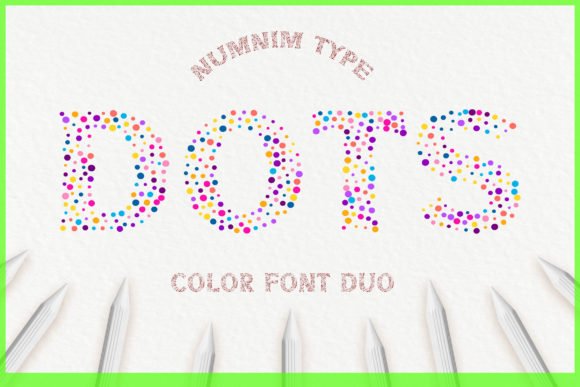
The Joy of Dots Font: Bringing Whimsy to Your Designs
Have you ever stared at a blank page, searching for the perfect font to give your project that extra oomph? We’ve all been there. The blank page stares back, taunting us to make a statement. But what if we told you there’s a font that’s guaranteed to break the silence and add a dash of whimsy to your work?
Meet Dots Font, a charming and playful typeface that’s making waves in the design community. This innovative font features characters crafted entirely from small circles, creating a unique visual identity that’s perfect for adding a touch of personality to your letterheads, titles, and stationery. For designers, Dots Font is a valuable tool for adding a creative twist to their work, and its versatility makes it a must-have in any design arsenal.
Dots Font Key Features
- Unique Characteristics: The font features a distinctive dot-based design, with varying dot sizes and arrangements to create a unique visual effect.
- Legibility: Despite its unique design, Dots Font is designed to be highly legible, making it suitable for a wide range of applications, from body text to headlines.
- Language Support: Dots Font includes support for a wide range of languages, including Latin, Cyrillic, Greek, and many others, making it a versatile choice for global applications.
Dots Font Review
I recently had the chance to work with the “Dots Font” and I must say it’s an interesting addition to any design project. ✨ One thing that works well is its unique, playful aesthetic. The rounded dots and varied line weights give it a friendly feel that’s perfect for kid’s books, educational materials, or any project that needs a lighthearted touch.
- ✨ Unique and playful aesthetic
- Perfect for kid’s books, educational materials, or any project that needs a lighthearted touch
- Well-suited for display headings or titles
However, I did encounter some limitations. ⚠️ One of the main issues is its limited flexibility. The font is best suited for short texts or headlines, but it may not be the best choice for long blocks of text. Additionally, the font’s size and spacing can sometimes be a bit inconsistent, which may require some tweaking in the design process.
- ⚠️ Limited flexibility
- Not ideal for long blocks of text
- Inconsistent size and spacing
Overall, I think the “Dots Font” is a great choice for designers looking for a fun, playful font to add some personality to their projects. With a little creativity and flexibility, it can be a great addition to any design.
For a more creative look, try layering multiple dots fonts with different colors and sizes.
For a unique look, try combining the Dots font with other creative typography elements.
For a visually appealing presentation, try using the Dots font to create a title or heading.
The Dots font is perfect for:
1. Creating eye-catching titles and headings.
2. Adding a playful touch to digital designs.
3. Making text-based graphics stand out.
4. Adding a creative twist to presentations and reports.
Alternatives to Dots Font for Designers
Comparison to Dots Font: Avenir is more geometric and precise, whereas Dots Font has a more playful and irregular feel. Avenir is better suited for corporate and editorial designs, while Dots Font is more suitable for creative and artistic projects.
Open Sans is a popular sans-serif font designed by Steve Matteson. It is highly legible and works well in various contexts, from digital interfaces to print materials. Open Sans is a great alternative to Dots Font when you need a clean and modern look.
Is the Dots Font suitable for large blocks of text?
No, the Dots Font is not suitable for large blocks of text due to its unique design. The font is best used for display purposes, such as headings and titles, where its distinctive look can be effectively showcased. For large blocks of text, a more traditional font with better legibility